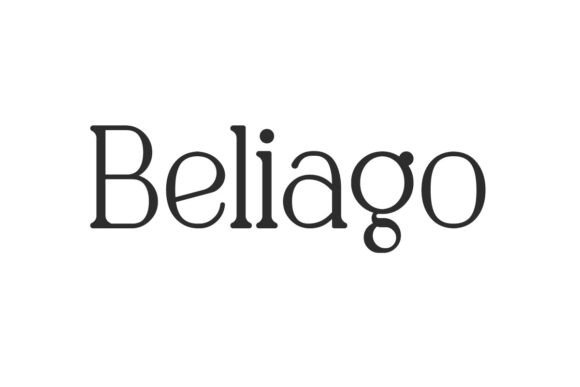
Beliago Font: Elevate Your Brand with a Retro-Inspired Classic Serif Font
In the world of typography, fonts play a crucial role in shaping the visual identity of a brand. A well-chosen font can instantly convey a brand’s personality, values, and style. If you’re looking for a font that combines the elegance of classic serif fonts with a modern twist, look no further than Beliago Font. In this article, we’ll explore the unique features of Beliago Font and how it can elevate your brand’s visual appeal across various industries.
What is Beliago Font?
Beliago Font is a retro-inspired classic serif font that boasts a modern look and artistic touch. Its unique blend of traditional and contemporary elements makes it an excellent choice for businesses seeking to establish a strong visual identity. With its elegant lines, refined curves, and precise letter spacing, Beliago Font exudes sophistication and refinement.
The Benefits of Using Beliago Font
So, what makes Beliago Font an attractive choice for businesses? Here are just a few benefits of using this versatile font:
- Enhances Visual Appeal: Beliago Font’s classic serif design and modern twist make it a visually stunning font that can instantly elevate your brand’s visual appeal.
- Versatile: Beliago Font is suitable for a wide range of industries, from architecture and beauty clinics to fashion and publishing.
- Artistic Touch: The font’s artistic touch adds a creative flair to your brand’s visual identity, making it perfect for businesses that value self-expression.
- Improves Readability: Beliago Font’s precise letter spacing and clear typography ensure excellent readability, making it ideal for body text and headlines.
Industries That Can Benefit from Beliago Font
Beliago Font’s versatility makes it an excellent choice for various industries. Here are some examples of businesses that can benefit from using this font:
- Architecture: Beliago Font’s classic serif design and modern twist make it perfect for architecture firms, real estate agencies, and interior design studios.
- Beauty and Cosmetics: The font’s elegant and refined design makes it suitable for beauty clinics, spas, salons, and cosmetic brands.
- Fashion and Jewelry: Beliago Font’s artistic touch and sophisticated design make it an excellent choice for fashion brands, jewelry designers, and boutiques.
- Food and Hospitality: The font’s warm and inviting design makes it perfect for restaurants, cafes, and event organizers.
- Publishing and Printing: Beliago Font’s excellent readability and classic design make it suitable for publishing houses, printing services, and bookstores.
- Skincare and Wellness: The font’s elegant design and artistic touch make it an excellent choice for skincare brands, wellness centers, and health spas.
- Wedding and Events: Beliago Font’s sophisticated design and artistic touch make it perfect for wedding planners, event organizers, and party designers.
How to Use Beliago Font Effectively
To get the most out of Beliago Font, here are some tips on how to use it effectively:
- Pair it with Other Fonts: Beliago Font works well with other fonts, especially sans-serif fonts. Experiment with different font combinations to create a unique visual identity.
- Use it Consistently: Consistency is key to establishing a strong brand identity. Use Beliago Font across all your marketing materials, including your website, social media, and print materials.
- Adjust Font Sizes and Styles: Experiment with different font sizes and styles to create visual hierarchy and emphasis.
- Consider Color Schemes: Beliago Font works well with a range of color schemes. Choose colors that complement your brand’s personality and values.
In conclusion, Beliago Font is a versatile and sophisticated font that can elevate your brand’s visual appeal across various industries. Its unique blend of classic serif design and modern twist makes it an excellent choice for businesses seeking to establish a strong visual identity. By using Beliago Font effectively, you can create a cohesive brand image that resonates with your target audience and sets you apart from the competition.
- What is Beliago Font? Beliago Font is a retro-inspired classic serif font with a modern look and artistic touch.
- What industries can benefit from using Beliago Font? Beliago Font is suitable for various industries, including architecture, beauty and cosmetics, fashion and jewelry, food and hospitality, publishing and printing, skincare and wellness, and wedding and events.